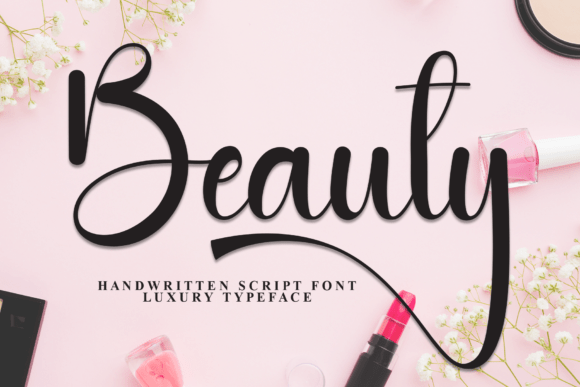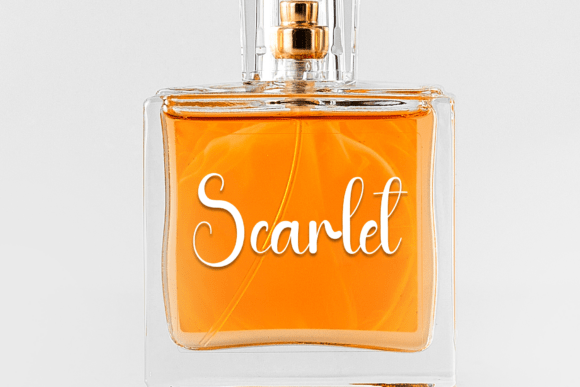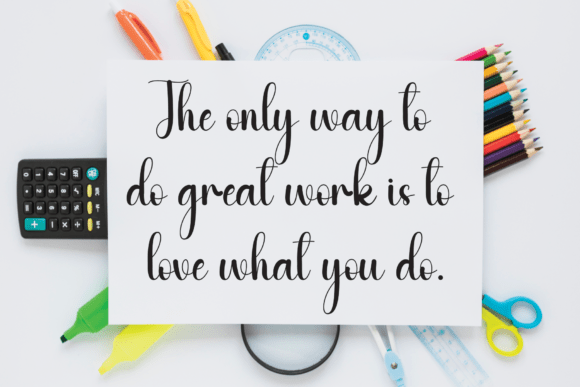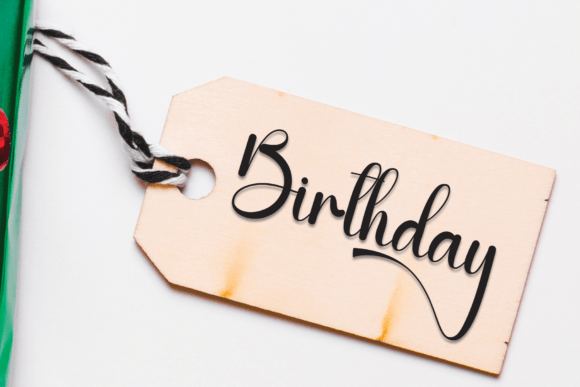
Beauty Font
Discover the charm of our whimsical handwritten font aptly named “Beauty”. With its playful curves and delightful flair, it breathes life into your design projects from wedding invitations to personal greeting cards. Whether you’re looking to instill a sense of joy or add a fun touch to your creative endeavor, this font effortlessly conveys warmth and personality in every glyph. Step into the delightful world of ‘Sweet and Friendly’ font and make each lettering experience uniquely yours.